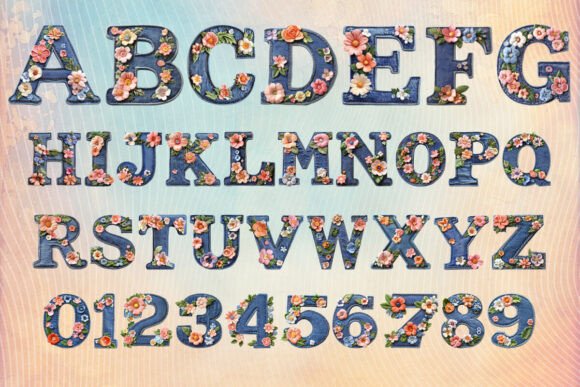
Unveiling the Flower Denim Jean Font: A Revolutionary Typography Experience
In the realm of typography, few fonts have managed to capture the essence of fashion and style as effectively as the Flower Denim Jean Alphabet. This daring denim jean aesthetic font is a game-changer, seamlessly merging the worlds of fashion and typography to create a truly unique visual experience. In this article, we’ll delve into the captivating charm of the Flower Denim Jean Font, exploring its design, versatility, and potential applications.
Design and Aesthetic
The Flower Denim Jean Alphabet is a color font that boasts an intricate design, where each letter is carefully crafted to resemble a blooming flora sewn into an authentic denim canvas. The result is a breathtaking exploration of the versatile potential of font design, where the natural grace of flowers meets the rugged charm of denim jeans.
This font’s design is characterized by its:
- Intricate details: Each letter features intricate details that reflect the texture and pattern of denim jeans, giving the font a tactile and realistic feel.
- Floral patterns: The font’s design incorporates floral patterns that add a touch of elegance and sophistication, making it perfect for projects that require a unique and creative approach.
- Denim texture: The font’s texture is reminiscent of authentic denim, giving it a rugged and laid-back feel that’s perfect for projects that require a casual, yet stylish approach.
The Flower Denim Jean Alphabet is a versatile font that can be used in a variety of projects, from graphic design and branding to crafting and DIY projects. However, it’s essential to note that:
Exploring the Creative Potential of Flower Denim Jean Font
The Flower Denim Jean Alphabet is more than just a font – it’s a statement of style. Its unique design and versatility make it an excellent choice for a wide range of projects, including:
- Branding and logo design: Add a touch of elegance and sophistication to your brand’s logo with this font’s intricate design and floral patterns.
- Graphic design: Use the Flower Denim Jean Alphabet to create stunning graphics, from posters and flyers to brochures and business cards.
- Crafting and DIY projects: This font is perfect for crafting and DIY projects, such as making custom signs, iron-on designs, and paper crafts.
- Web design: Add a creative touch to your website with this font’s unique design and texture, perfect for headings, titles, and other design elements.
Tips and Tricks for Using Flower Denim Jean Font
To get the most out of the Flower Denim Jean Alphabet, here are some tips and tricks to keep in mind:
- Experiment with colors: This font’s color design allows for endless possibilities when it comes to color schemes. Experiment with different colors to find the perfect combination for your project.
- Mix and match: Combine the Flower Denim Jean Alphabet with other fonts to create a unique and creative visual experience.
- Pay attention to texture: The font’s texture is a key element of its design. Make sure to pay attention to texture when using the font, especially when combining it with other design elements.
The Flower Denim Jean Alphabet is a revolutionary font that seamlessly merges fashion and typography. Its unique design, versatility, and creative potential make it an excellent choice for a wide range of projects. Whether you’re a graphic designer, a crafter, or a DIY enthusiast, this font is sure to add a distinct creative touch to any project. So why wait? Embrace the unique allure of the Flower Denim Jean Font and take your projects to the next level.